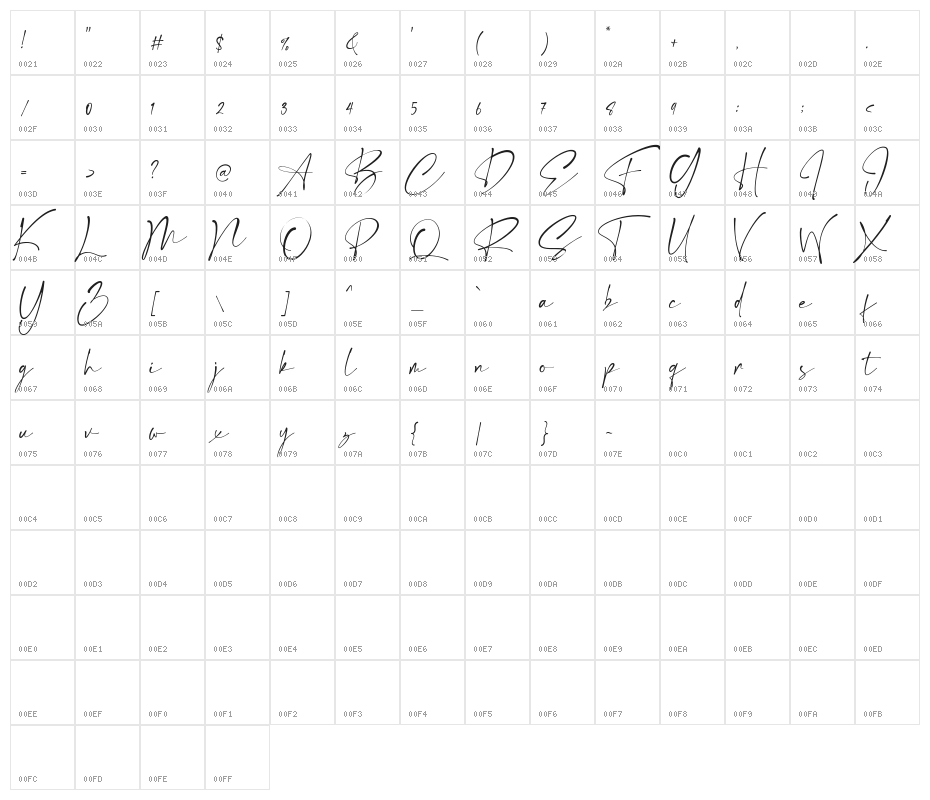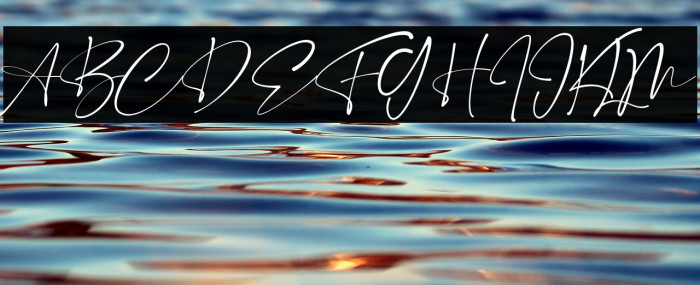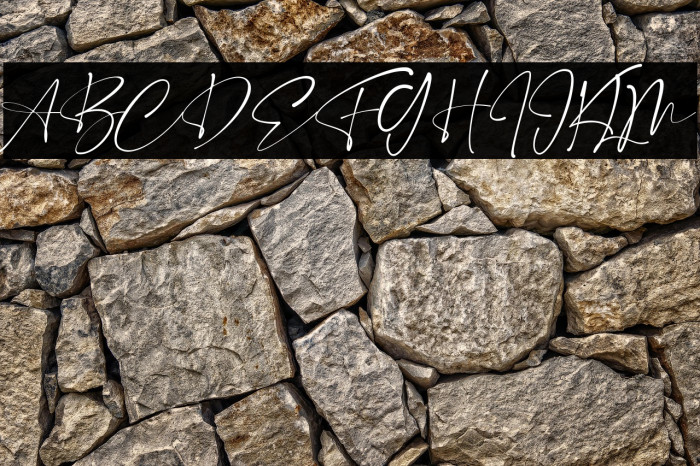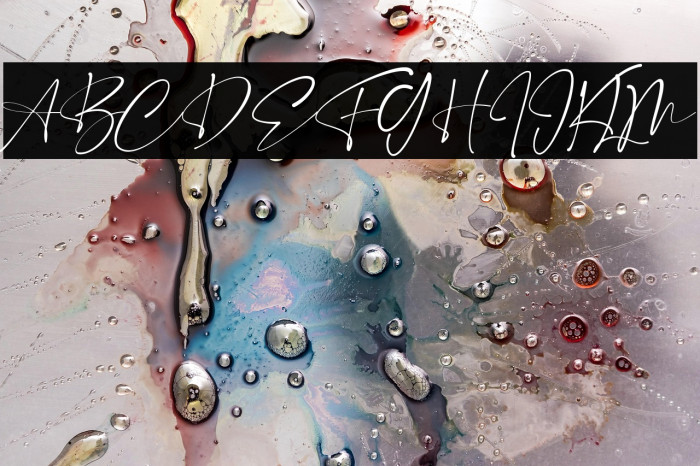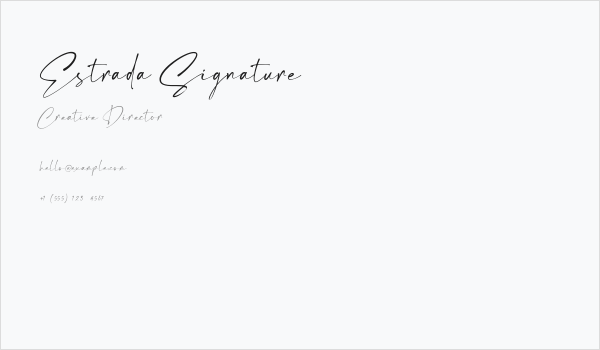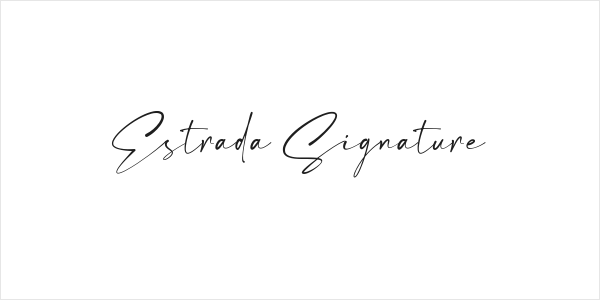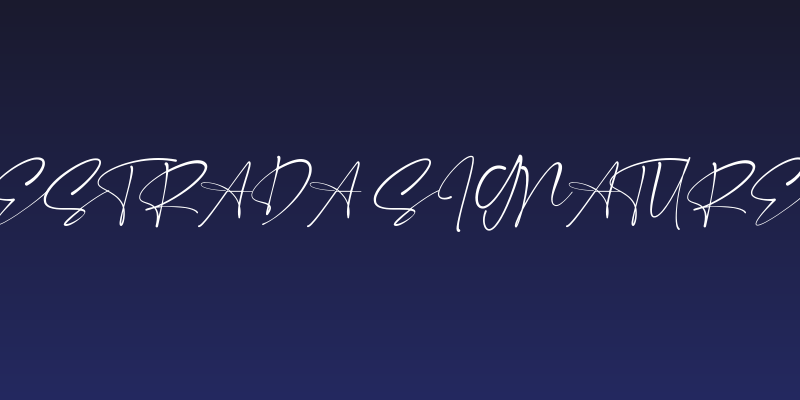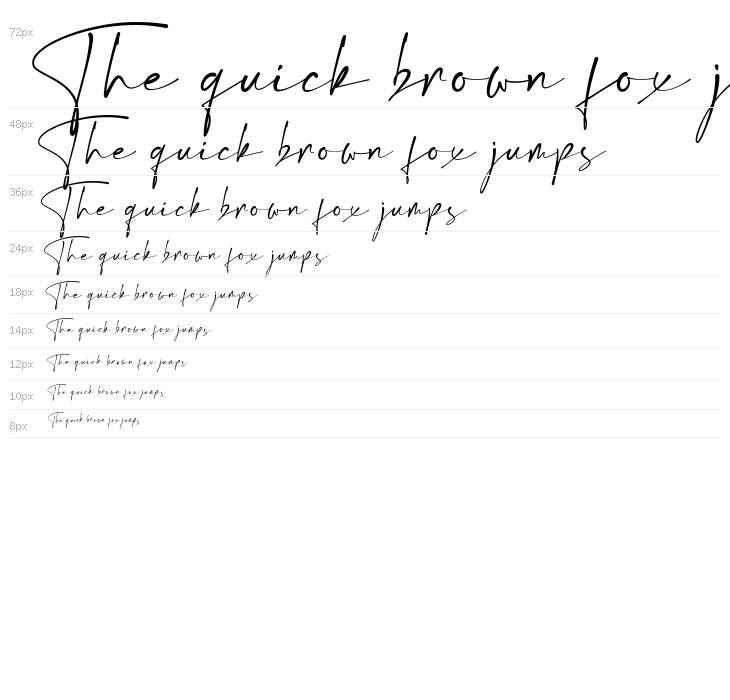
Estrada Signature Font
Estrada Signature Description
This font exudes a sophisticated and elegant style, characterized by its fluid, cursive script that mimics the natural flow of handwriting. The letters are interconnected, creating a seamless and continuous line that enhances its signature-like appearance. The strokes vary in thickness, adding a dynamic and lively feel to the text. This font is particularly effective in conveying a personal and artistic touch, making it ideal for projects that require a sense of individuality and creativity. The uppercase letters are bold and prominent, while the lowercase letters maintain a graceful and delicate form. The numerals and special characters are consistent with the overall style, ensuring a cohesive look across all text elements.
| Use Case | Logos, Invitations, Personal branding |
| Proposed Projects | Ideal for branding, wedding invitations, personal stationery, and artistic projects. |